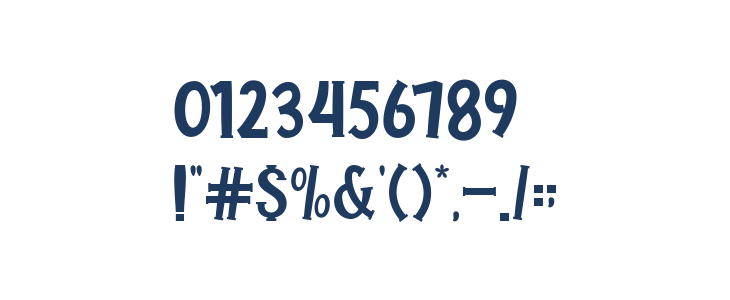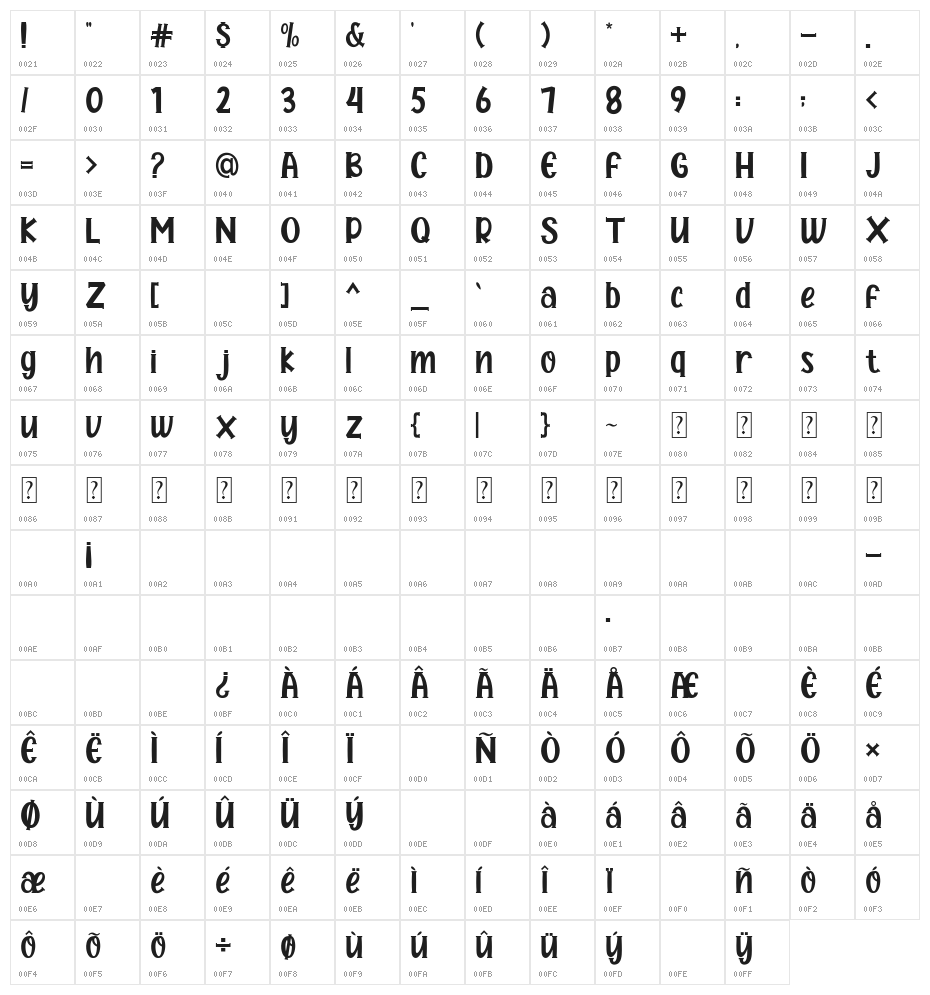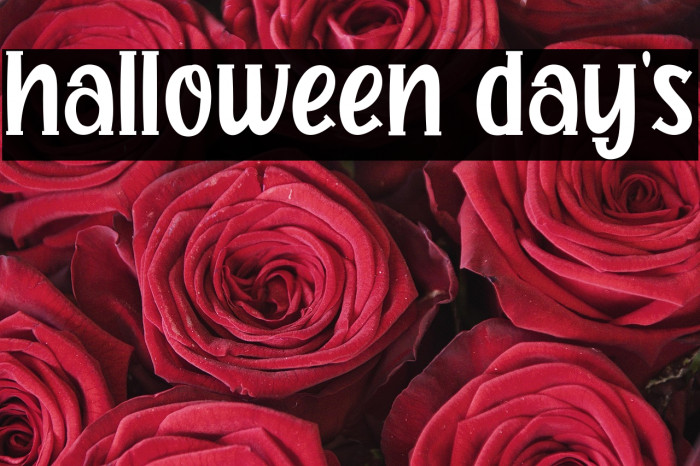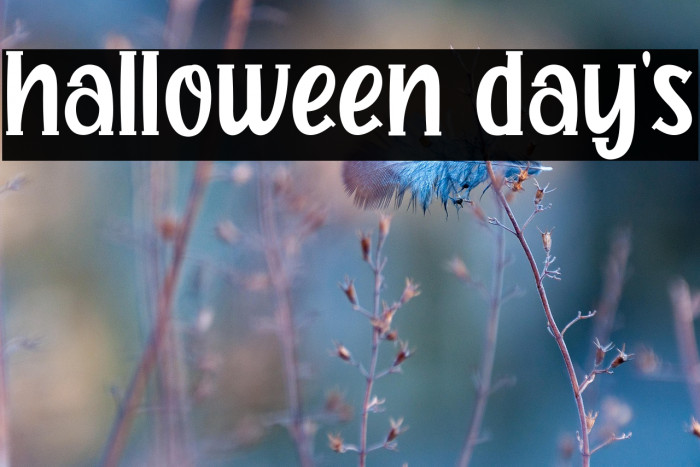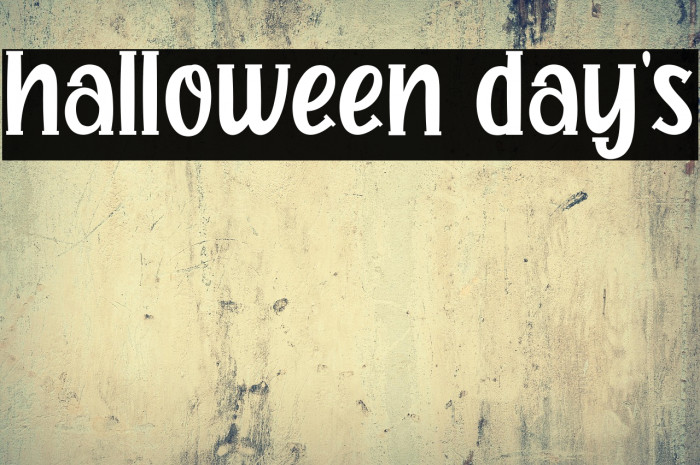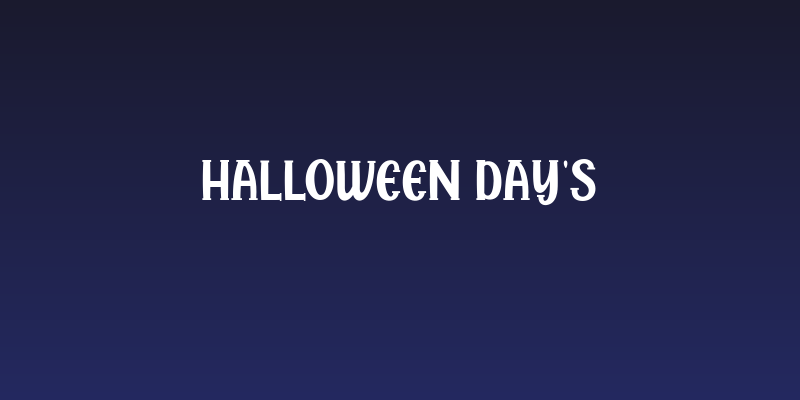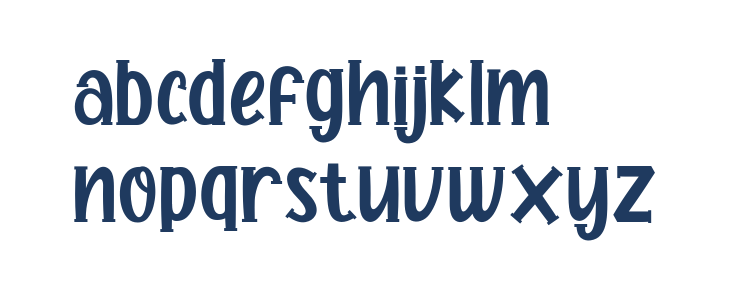
halloween day's Font
halloween day's Description
This font features a playful and slightly spooky aesthetic, perfect for Halloween-themed designs. The characters have a whimsical, hand-drawn quality with uneven strokes and a slight tilt, adding to its quirky charm. The uppercase letters are bold and prominent, while the lowercase letters maintain a consistent style, enhancing readability. The numbers and special characters follow the same playful design, making them suitable for creative projects. The font's unique style makes it ideal for capturing attention and adding a festive touch to any design.
| Proposed Projects | Ideal for Halloween invitations, themed posters, party decorations, and creative branding. |